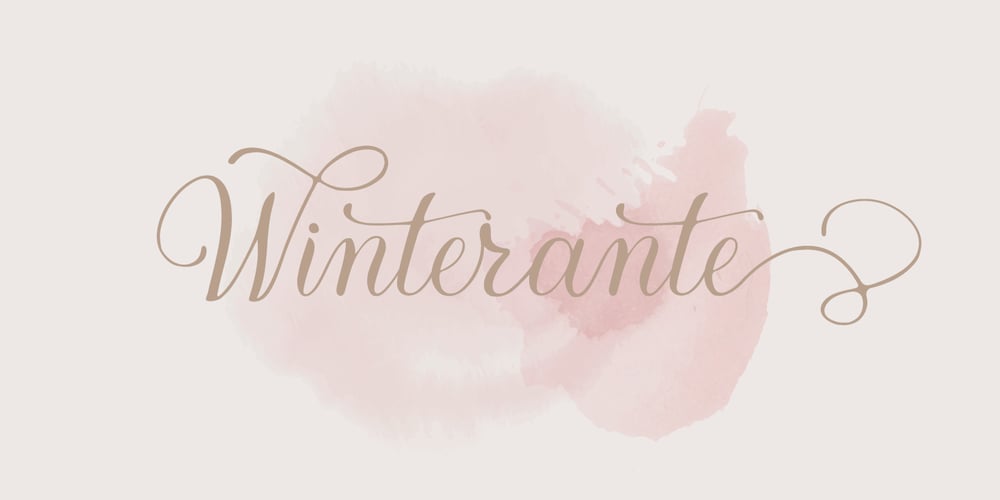
Winterante Font Family was designed by Alde Saputro and published by Aldedesign. Winterante contains 2 styles and family package options. Winterante is a beautiful and light handwritten font with a unique feel and a stunning impact. It will add a luxury spark to any design project that you wish to create! This font is PUA encoded which means you can access all of the amazing glyphs and ligatures with ease!Each Font Has: Stylish modern handwritten script Beautiful Swash (Ending tail) Beautiful Titling (Beginning tail) Special Ligatures Multilingual Support